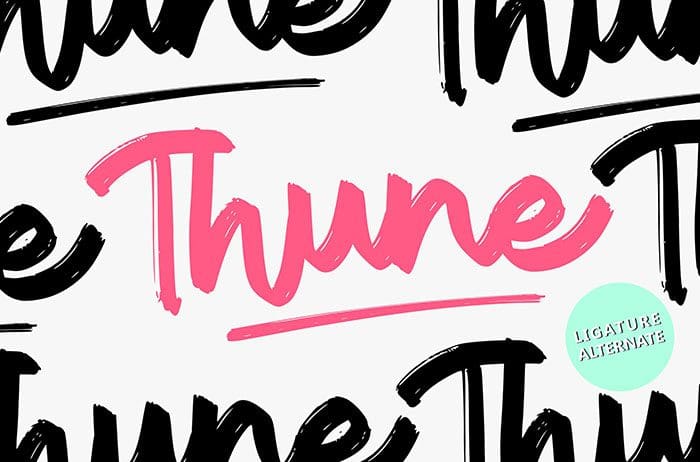
Thune Bold Brush Font
Thune bold brush font. Fall in love with its playful look & feel. Very suitable to be used for logotype, header magazine, t-shirt design, etc. Inspired by its exciting look & feel. Thanks to Vunira Studio for sharing this font! Take a look at this portfolio for more of his stunning fonts.